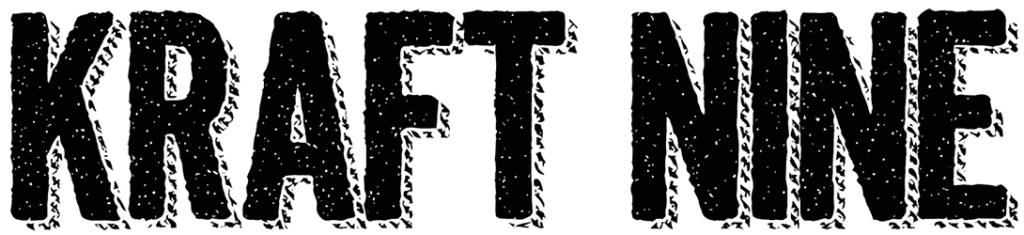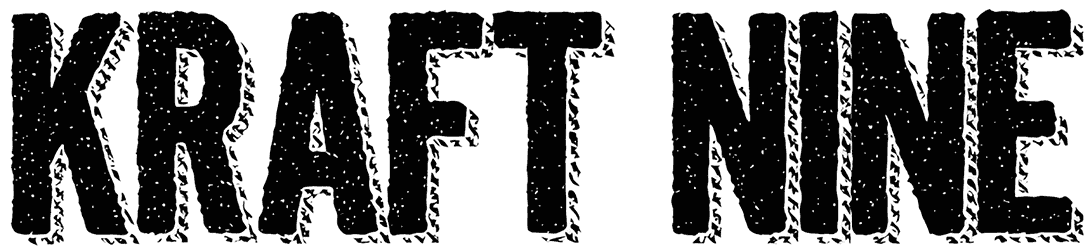
Kraft Nine Font
If you want a creative text, you can use a hand-painted look. Kraft Nine has a blocky and sans serif handwritten character style and it will give a friendly and modern look to your reader.
You can use this vintage industrial font for children’s books, product introductions and naming, cartoon and motivational movie titles, inspirational books, and channel banners. The font only has capitals and its punctuational set only has two characters.